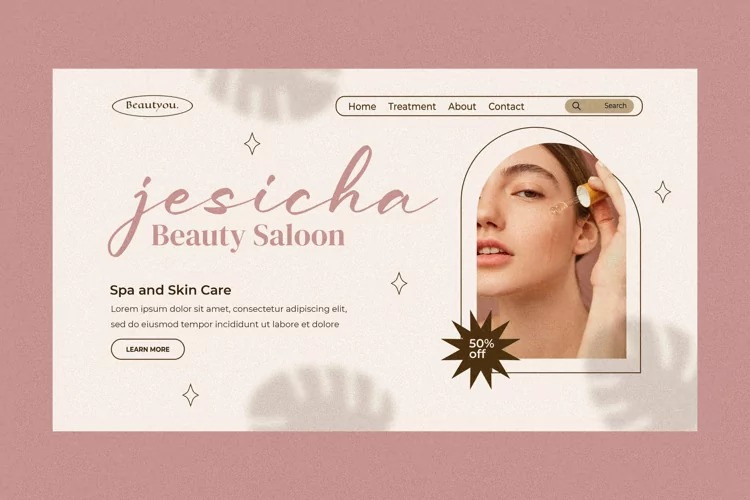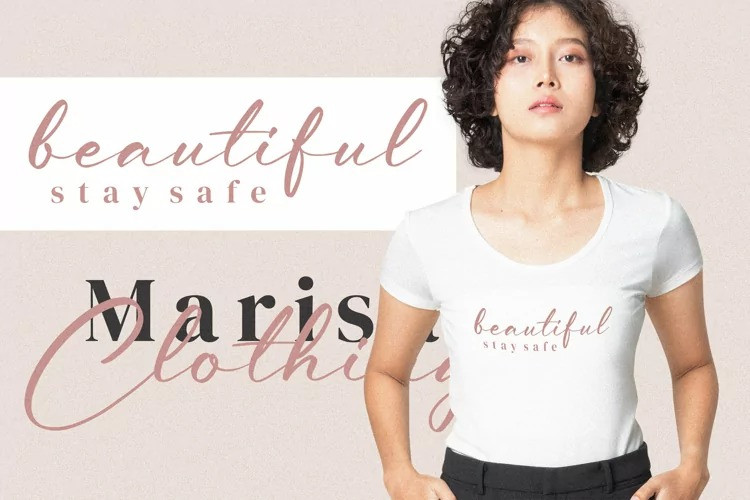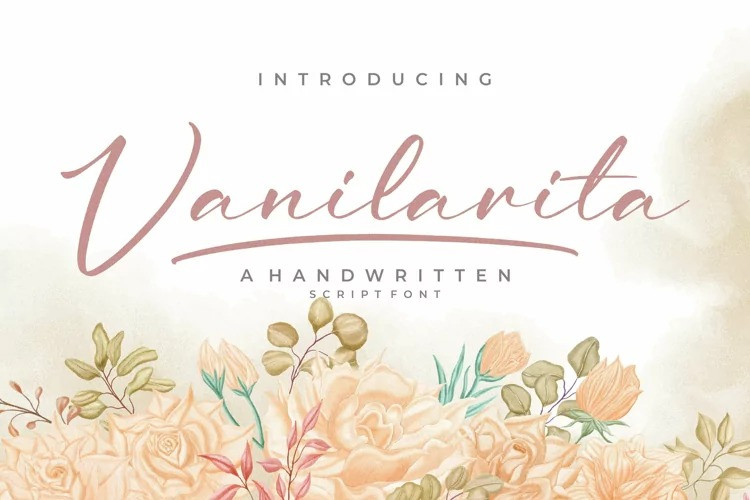
Vanilarita Font
Vanilarita – Handwritten Script Font , from Integritype Studio, is a premium Handwritten Script Font, suitable for any projects such as: logos, branding projects, homeware designs, product packaging, mugs, quotes, posters, shopping bags, t-shirts, book covers, name card, invitation cards, greeting cards, label, photography, watermark, special events, and all your other luxury projects that need a premium signature taste.